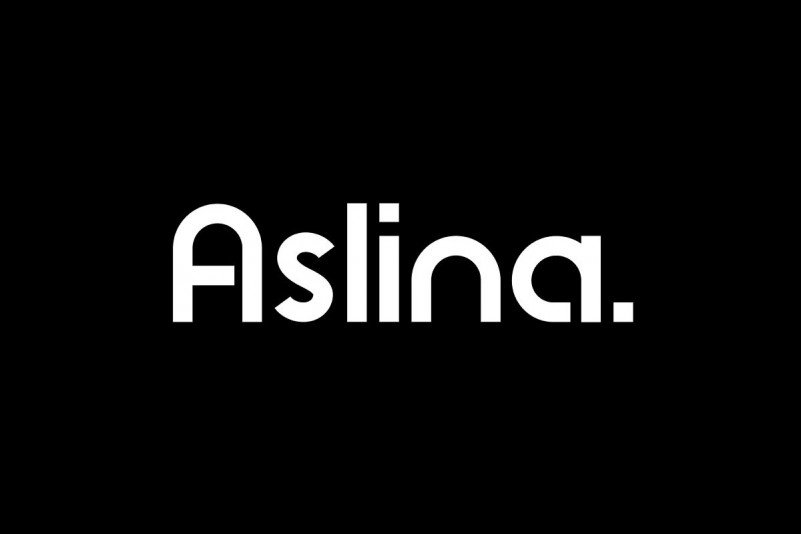
Aslina Display Font
Introducing Aslina Font, Designed for an impactful and stylish visual impression especially on Headline,logos and posters. Aslina‘s has semi humanist and semi geometric details and extensive language support.
Aslina makes a strong impression in print, video,headlines and social media – always be the best choice and easy to read clear and comfortable whether he is paired or stand alone as the main topic in your design.